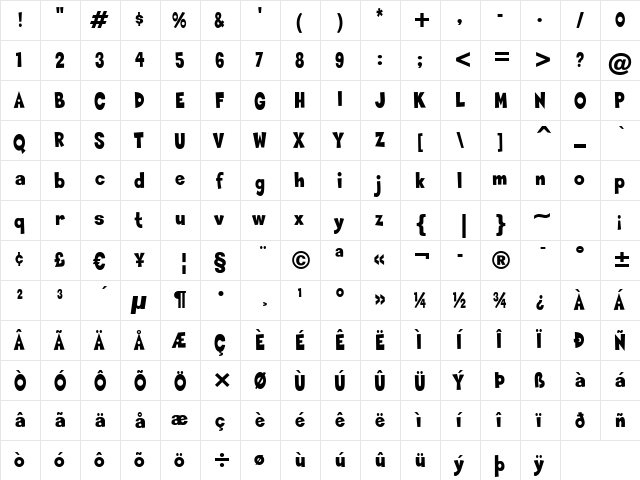
Sneakerhead BTN Condensed Regular
Design Context for Sneakerhead BTN Condensed Typeface
Sneakerhead BTN Condensed is a composed and adaptable typeface that performs quietly and consistently across a wide range of design contexts. The condensed width makes it efficient for tight spaces without sacrificing legibility.